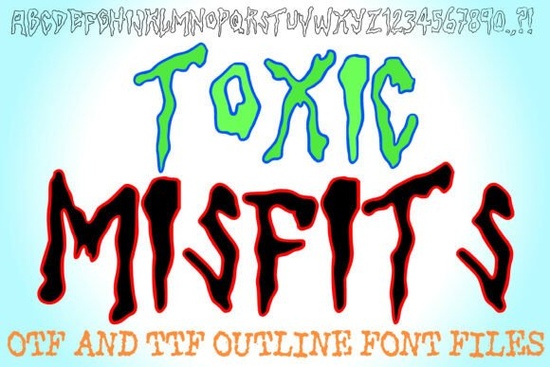
When you need a typeface that screams rebellion and refuses to blend in, the Toxic Misfits Font offers a distinct visual voice. This display typeface is designed for creators who want their work to feel raw, unpolished, and full of energy. It captures a radio-active sludge aesthetic that works perfectly for projects needing a strong counter-culture vibe. Whether you are designing a logo for a skate brand or creating artwork for a music event, this font provides the heavy, fluid drips and elongated proportions necessary to grab attention immediately.
Many designers struggle to find fonts that feel organic yet impactful. Standard typefaces often look too clean or rigid for edgy projects. This specific style solves that problem by mimicking melting forms that appear to shift under heat or chemical reaction. It brings a B-movie horror vibe to your layouts without requiring complex illustration work. You can achieve a high-impact look simply by typing your headline.
What makes this typeface stand out for edgy projects?
The core design features dramatically warped shapes that pool at the base of each letter. These fluid drips create a sense of motion, as if the text is sliding down the page. This effect is particularly useful for streetwear apparel where graphics need to look worn or distressed. It also suits punk music festival flyers that rely on chaos and intensity to communicate their message.
When you use this font, you are not just adding text; you are adding texture. The unpolished edge helps your designs feel authentic rather than corporate. For example, if you are making spooky Halloween graphics, the melting effect enhances the creepy atmosphere naturally. You do not need to add extra filters or effects in your software because the font itself carries the visual weight.
Where does this style fit best in modern design?
This typeface shines in niches that value individuality and grit. It is an excellent choice for eye-catching sticker designs that need to pop against a laptop or water bottle. Gamers also appreciate this style for channel art because it conveys energy and aggression. The elongated proportions work well for wide banners where horizontal space is abundant.
Beyond horror and punk themes, this font can adapt to any project needing a bold statement. It works well for sale posters, album covers, and even packaging for niche products like energy drinks or hot sauces. The key is to let the font be the hero of the design. Keep background elements simple so the melting letters remain the focal point.
How do you pair warped display types with other text?
Using a heavy display font like this requires balance. Since the letters are thick and irregular, you should pair them with a simple sans-serif body font. This creates contrast and ensures readability for smaller text blocks. Avoid using another decorative font for the body copy, as it will make the design look cluttered and hard to read.
White space is your friend when working with dripping letters. Give the text room to breathe so the drips do not collide with other design elements. If you are designing a t-shirt, place the text centrally with plenty of margin around the edges. This prevents the melting effects from getting lost in the seams or folds of the fabric.
- Pair Simply: Combine with a basic sans-serif font for body text.
- Test Prints: Print a sample to see how the fine details hold up on fabric or paper.